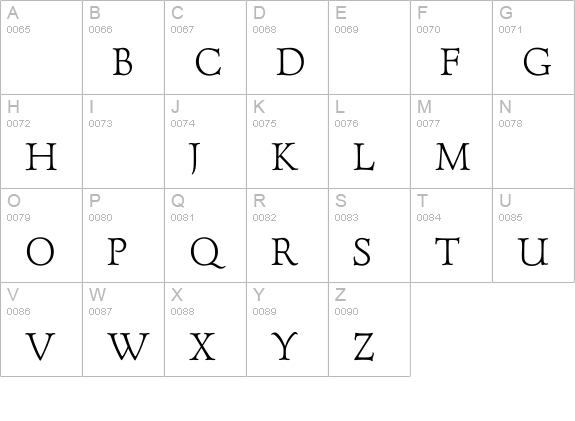
ForumTitlingMedium Font Details
ForumTitlingMedium is a sleek and modern font that exudes sophistication and elegance. With its clean lines and balanced proportions, this font is perfect for creating eye-catching titles and headings. The medium weight adds a sense of authority and professionalism to any design project. What's even better is that ForumTitlingMedium is available for free download at FontsMarket.com. Take advantage of this fantastic opportunity to enhance your designs with a high-quality font that will make your text stand out. Don't miss out on the chance to elevate your projects with ForumTitlingMedium today!